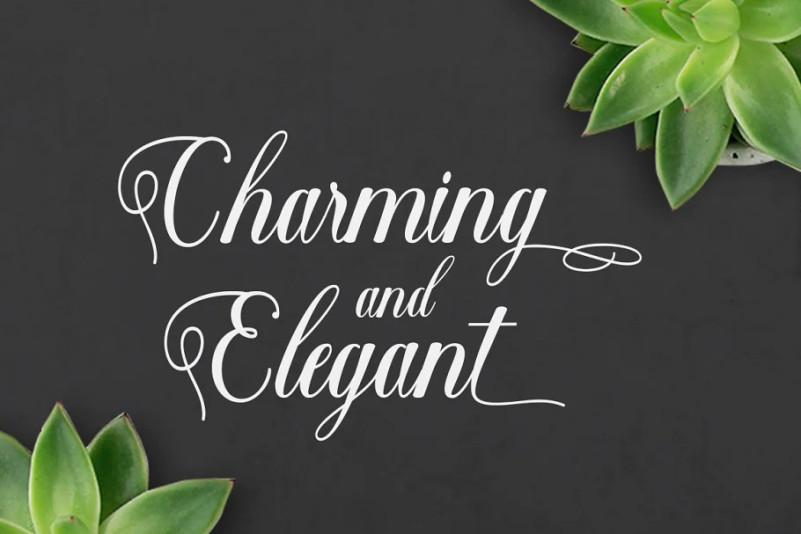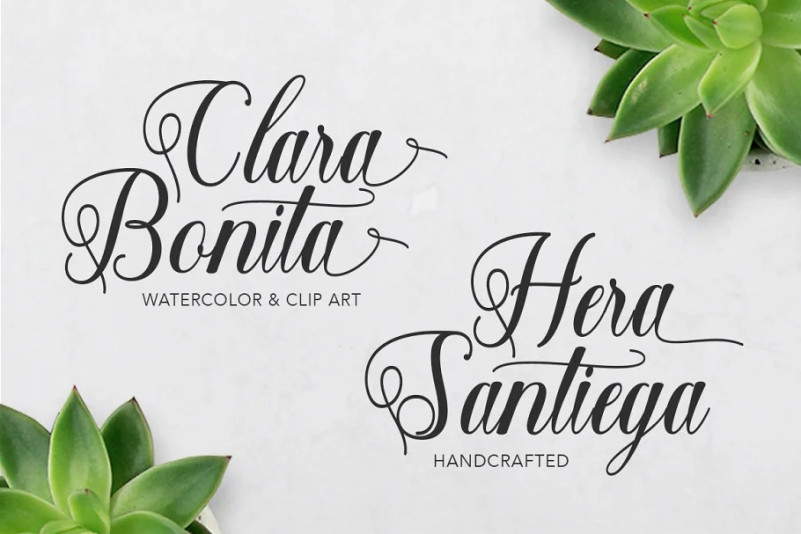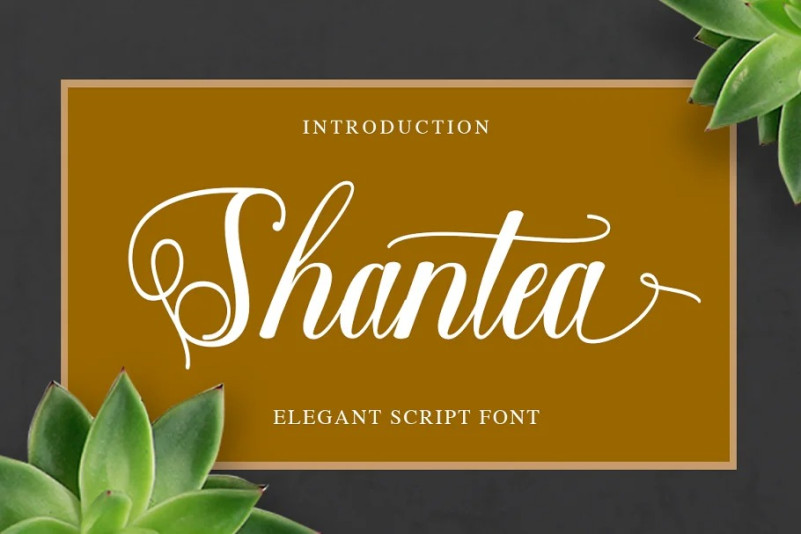
Shantea Font
Shantea Script Font is charming and elegant. This stunning script font is a stylish homage to classic calligraphy. Features Open type feature, stylistic alternates, including initial and terminal letters, ligatures and International support for most Western Languages is included. Perfect to creating modern designs like ads, logos, branding, quotes, poster, wedding invitation and more. that makes the font look fabulous!